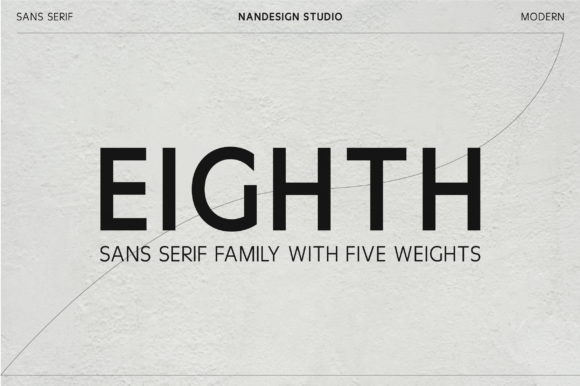
Unlocking Elegance in Design
As designers, we’ve all experienced that moment when a project comes together and we can’t help but feel a sense of pride and accomplishment. It’s the culmination of hours, even days, of brainstorming, sketching, and refining our ideas. But what elevates a design from good to great? For many of us, the answer lies in the typography.
Enter Eighth Font, a masterfully crafted sans-serif font family designed to elevate your designs to new heights. With 5 distinct weights, Eighth Font offers the versatility and sophistication needed to tackle projects ranging from high-end magazines to film posters and everything in between. Its precision and attention to detail make it the perfect tool for designers seeking to add a touch of timeless charm and contemporary luxury to their creations.
Eighth Font Key Features
- Size: The font family consists of 12 different weights, ranging from Thin to ExtraBold, providing ample options for designers and typographers.
- Unique Characteristics: Eighth Font features a distinctive, modern aesthetic with subtle rounded edges and a clean, sans-serif design.
- Language Support: The font includes comprehensive language support, covering a wide range of languages, including Latin, Cyrillic, and Greek alphabets.
- Kerning and Ligatures: Eighth Font includes advanced kerning and ligature pairs, ensuring smooth text rendering and a polished, professional appearance.
Eighth Font Review
I recently had the chance to work with the Eighth Font, and I have to say, it’s a mixed bag. Here’s what I think:
- The Eighth Font has a unique, futuristic aesthetic that can really elevate the look of a design project.
- The font is highly customizable, with a wide range of weight and style options to choose from.
- The font is well-suited for digital use, and I found it to be particularly effective in displaying text on screens.
- The font can be a bit difficult to read in small sizes, particularly in print.
- The font’s unique style may not be to everyone’s taste, and it may not be suitable for more conservative design projects.
- The font is not as widely supported as some other fonts, which may cause issues with older browsers or systems.
Overall, I think the Eighth Font is a solid choice for designers looking to add a touch of futurism to their projects. While it may have some limitations, its unique style and high customizability make it a great option for the right project. Just be sure to test it thoroughly before committing to using it in a final design.
Tips for Getting the Most Out of Eighth Font
To get the most out of the Eighth Font, try the following:
- Combine the Eighth Font with other fonts to create a unique and eye-catching design.
- Use the Eighth Font to create a consistent brand identity across multiple projects.
The Eighth Font is ideal for:
- Creating a modern and sleek design aesthetic.
- Designing